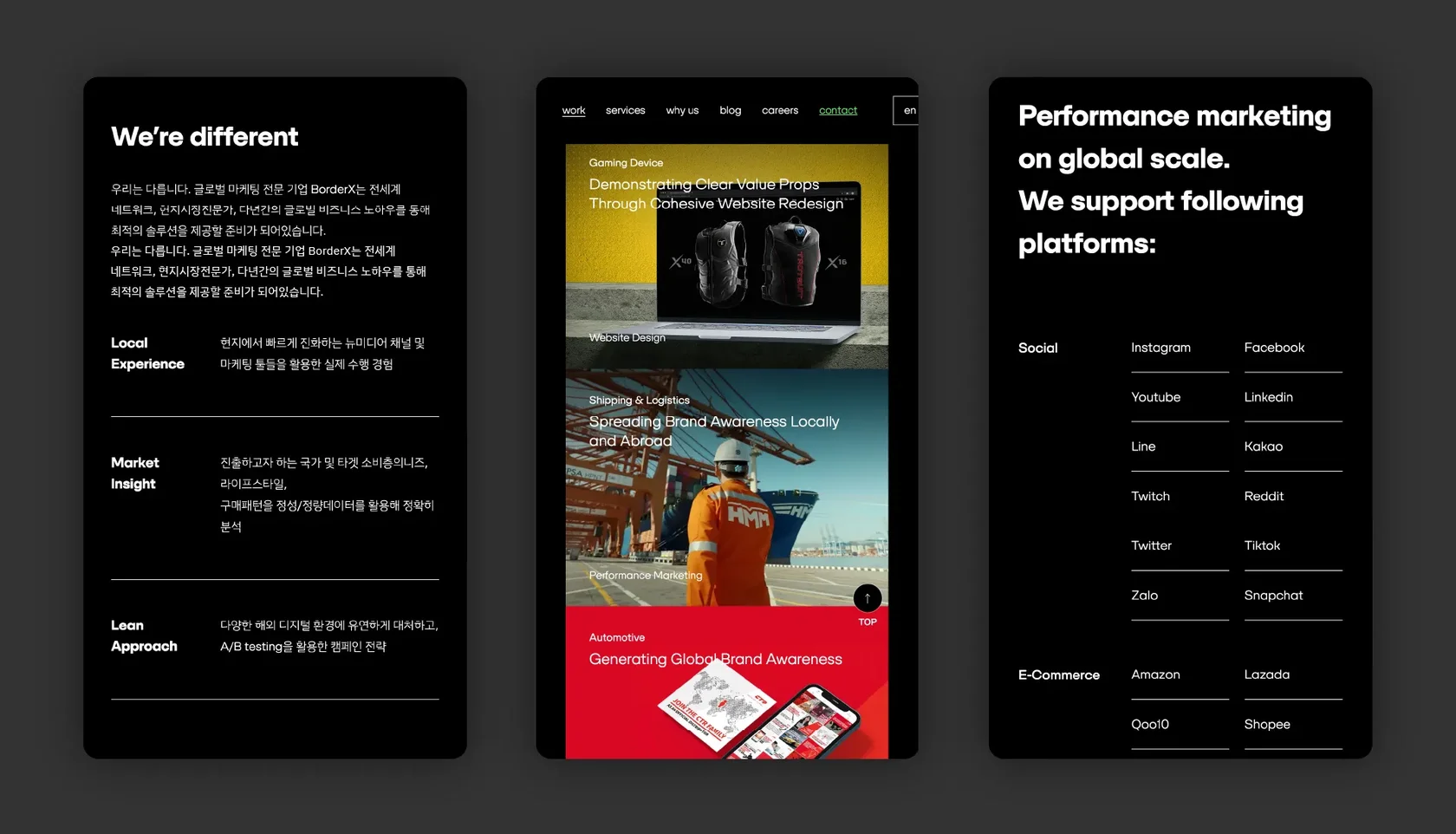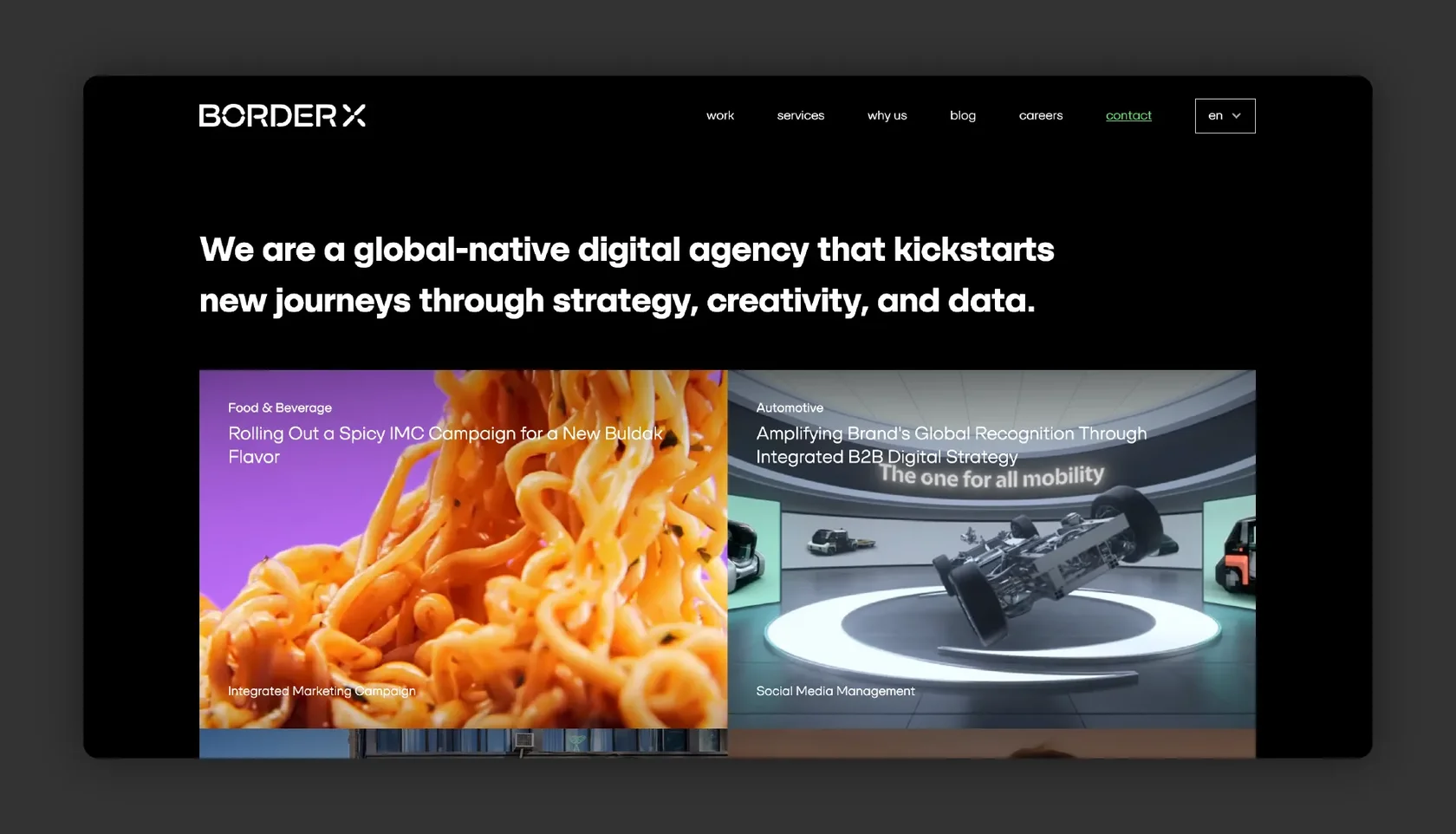
Font: SFT Schrifted Sans (Light, Regular, Medium, Bold). IBM Plex Sans KR (Korean).
BorderX is a global-native digital agency that combines strategy, creativity, and data to help brands enter and thrive in new markets. Their approach emphasizes local expertise, market insight, and a lean strategy, ensuring effective global marketing. To reflect this, the website pairs SFT Schrifted Sans for English content with IBM Plex Sans KR for Korean, maintaining a clear, modern, and professional aesthetic across languages.
For a global agency, typography must support local expertise and market insight. SFT Schrifted Sans ensures structured readability in English, while IBM Plex Sans KR complements it with a modern, legible Korean counterpart, reinforcing BorderX’s seamless cross-market communication.